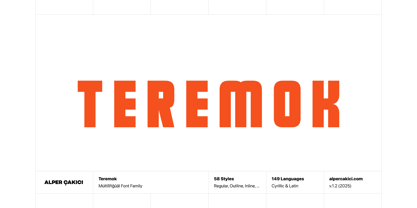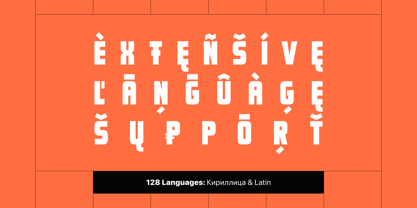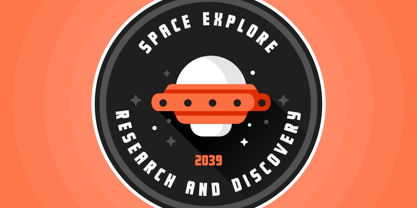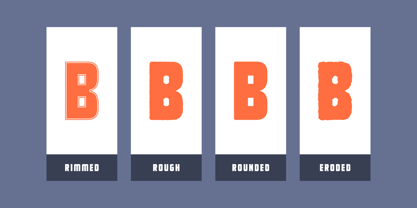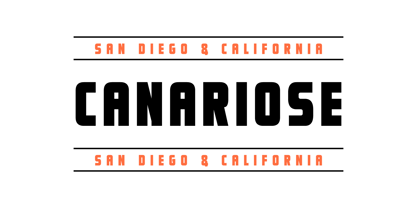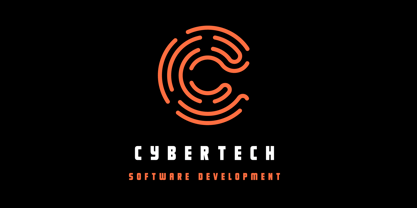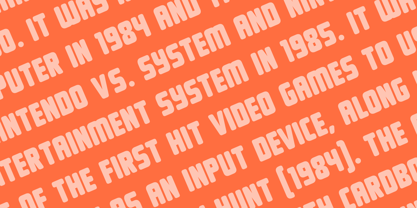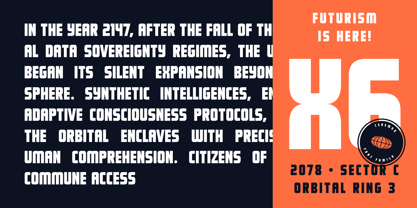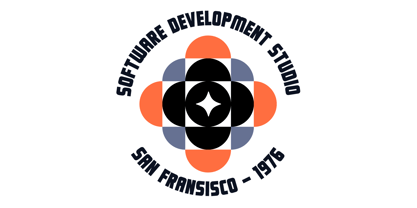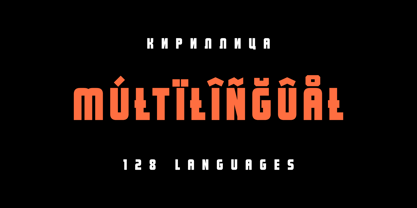
Teremok
by AlperCakici
The Teremok Font Family was designed by Alper Çakıcı and published by AlperCakici. Teremok contains 58 styles and family package options. More about this family
🚀 Teremok – A Modern Cyrillic Typeface - Teremok is a clean and contemporary sans-serif family designed for designers who want versatility and a subtle futuristic edge. Built on geometric structure and smooth modern forms, Teremok includes 58 styles ranging from simple and minimal to textured, rough, inline, brush, and rounded variations. Whether you’re creating UI, sci-fi visuals, branding systems, motion graphics, or large display typography, Teremok offers a cohesive set of styles suitable for a wide range of design purposes. ✨ Why Designers Choose Teremok - 58 Styles: Angular, Circular, Rounded, Brush, Rough, Inline, Rimmed, Pencil, Noise, Eroded, Outline + matching italics. - Modern Sans-Serif Aesthetic: Clean geometric shapes with a subtle futuristic tone. Highly Versatile: Ideal for UI/UX, tech branding, gaming, posters, digital products, and motion graphics. - Optimized Across Media: Designed for clarity in print, screens, and large-scale display environments. - 128 Languages: Comprehensive Latin + Cyrillic coverage for global use. 🌍 Multilingual Support - 128 Languages Extended Latin + Cyrillic support ensures broad global compatibility.
Designers: Alper Çakıcı
Foundry: AlperCakici